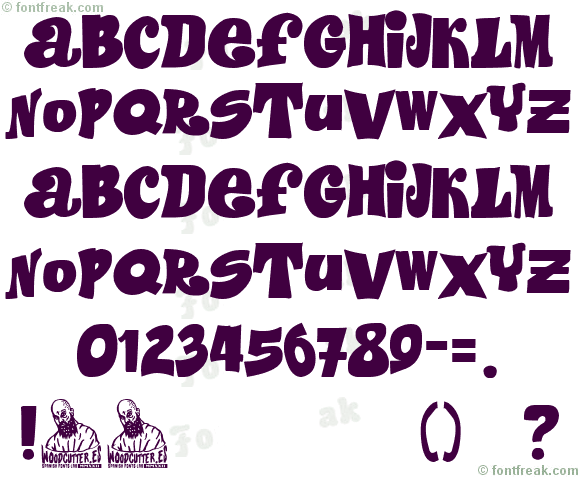
Mortadelo y Filemón
The Mortadelo y Filemón font by woodcutter Manero is an eye-catching display typeface that brings a playful, whimsical aesthetic to any design project. This decorative font features bold, rounded characters with an irregular stroke weight, creating a lively and dynamic visual effect. The distinctive letterforms are adorned with quirky curves and playful angles, which contribute to its unique charm. The spacing between the characters is designed to maintain readability while enhancing the font's artistic flair, making it suitable for a variety of creative applications.
Mortadelo y Filemón is a perfect choice for projects that require a touch of fun and creativity. It shines in use cases such as children's book covers, comic strips, and vibrant promotional materials. Additionally, this font is ideal for movie posters aimed at a younger audience or for branding elements that need to convey a lighthearted tone. Its playful nature makes it a great fit for social media graphics that engage viewers and invite interaction.
What sets the Mortadelo y Filemón font apart is its ability to evoke a sense of nostalgia while remaining fresh and contemporary. The combination of its quirky design and versatility ensures that it stands out in a crowded marketplace, making it a valuable addition to any designer's toolkit. Whether you’re looking to add personality to a flyer or create eye-catching digital content, this font is sure to deliver.